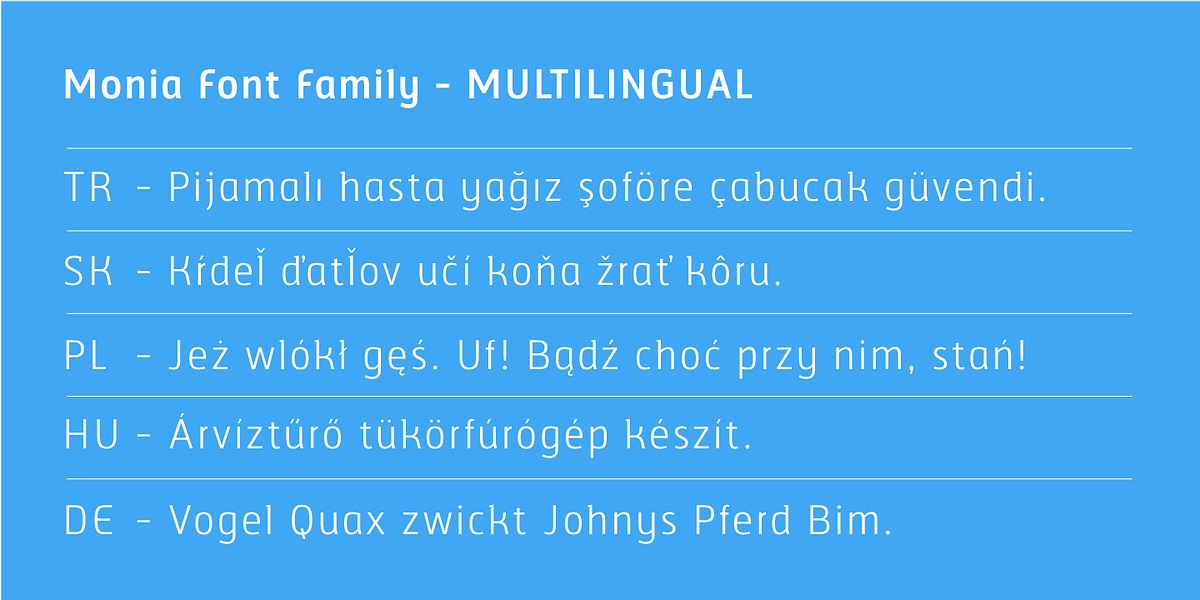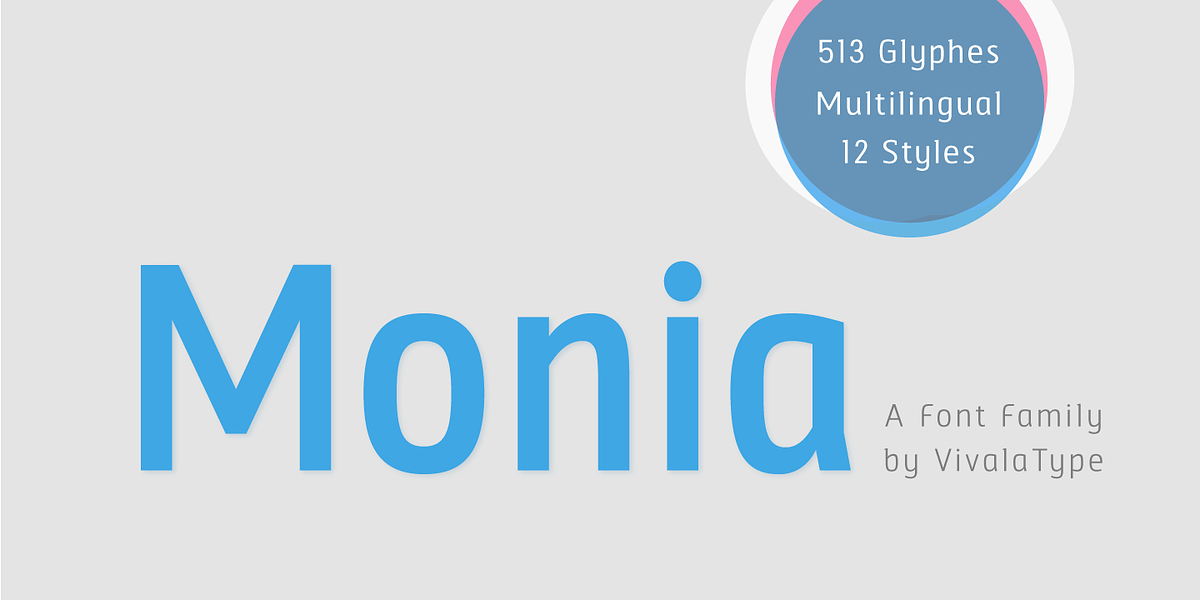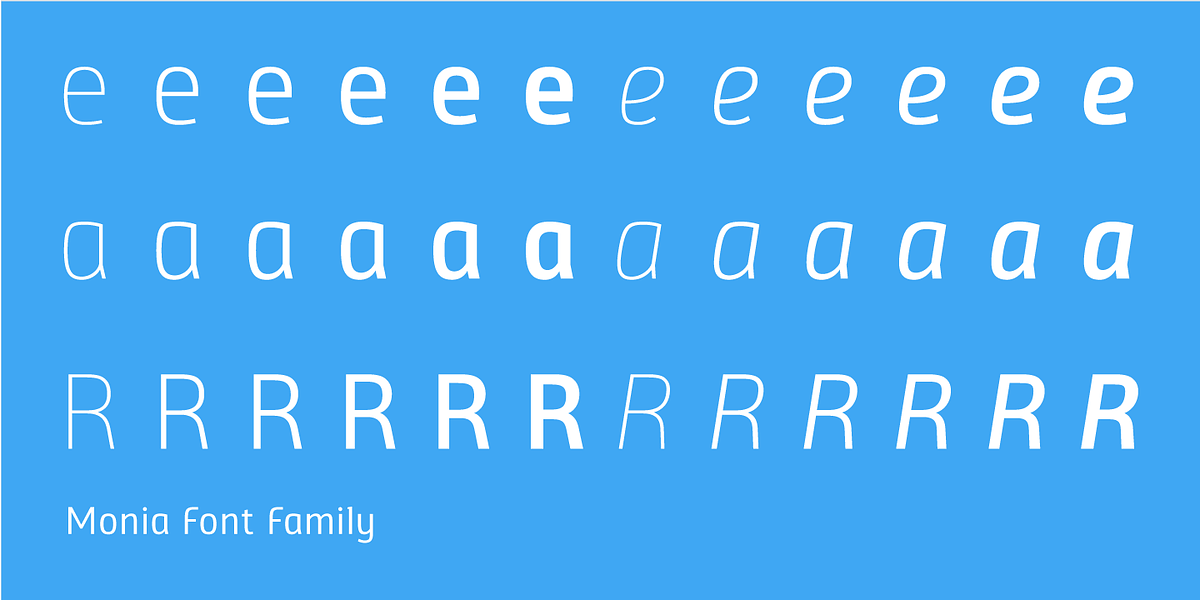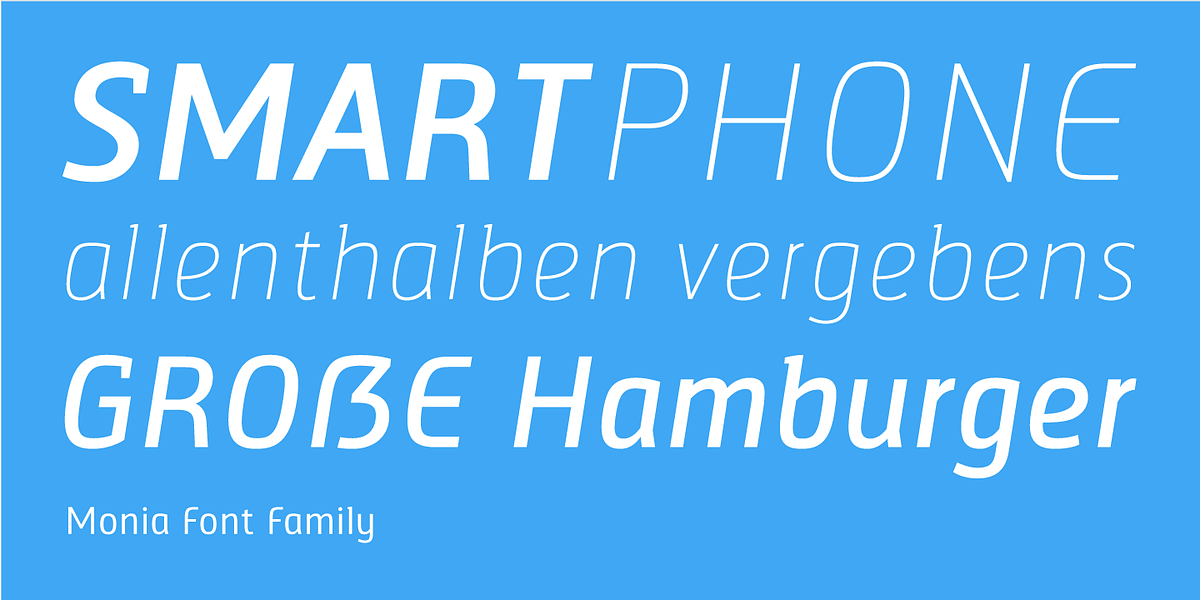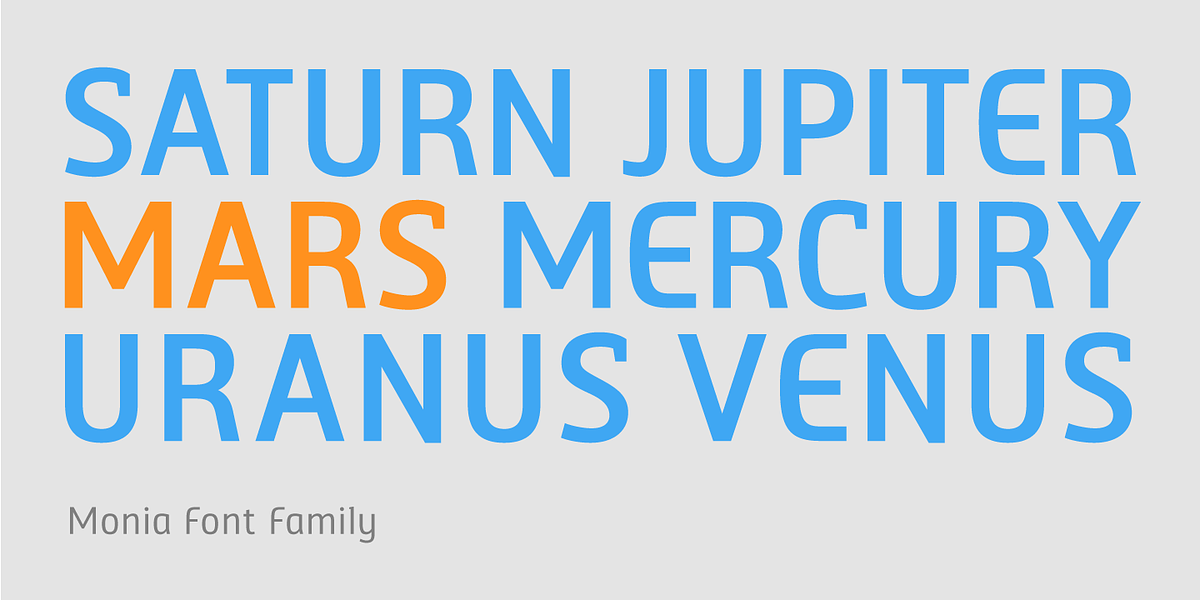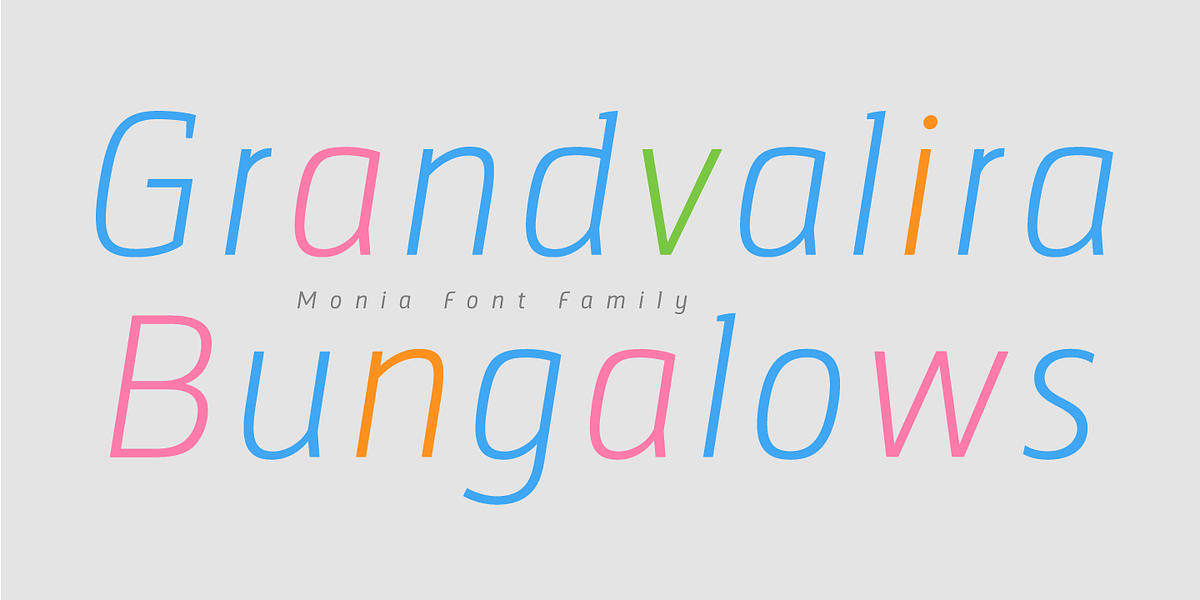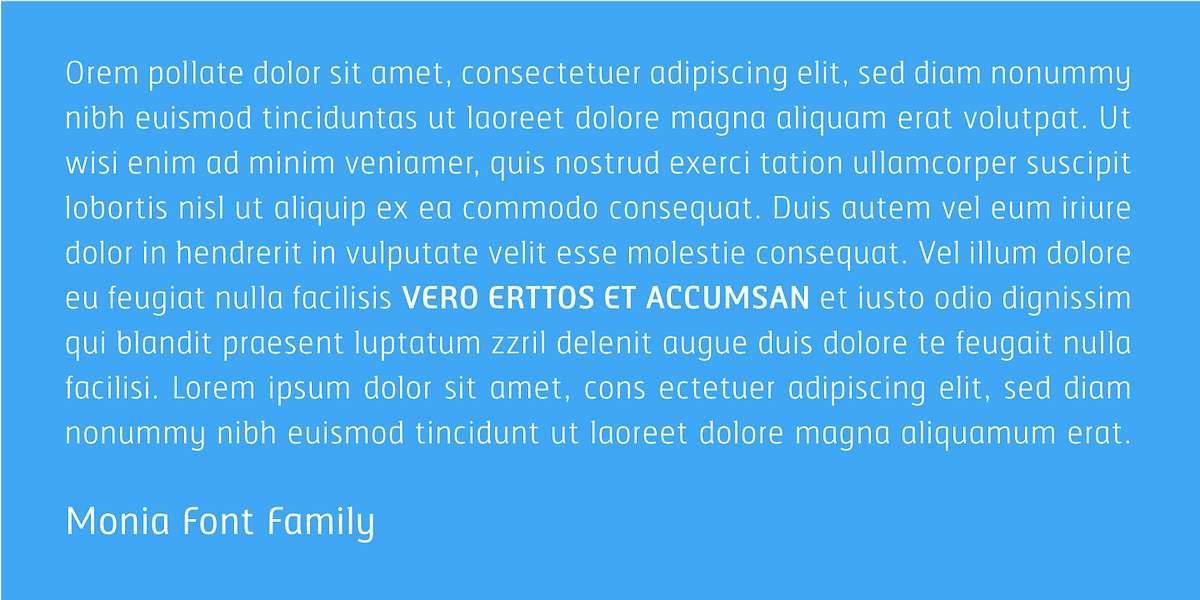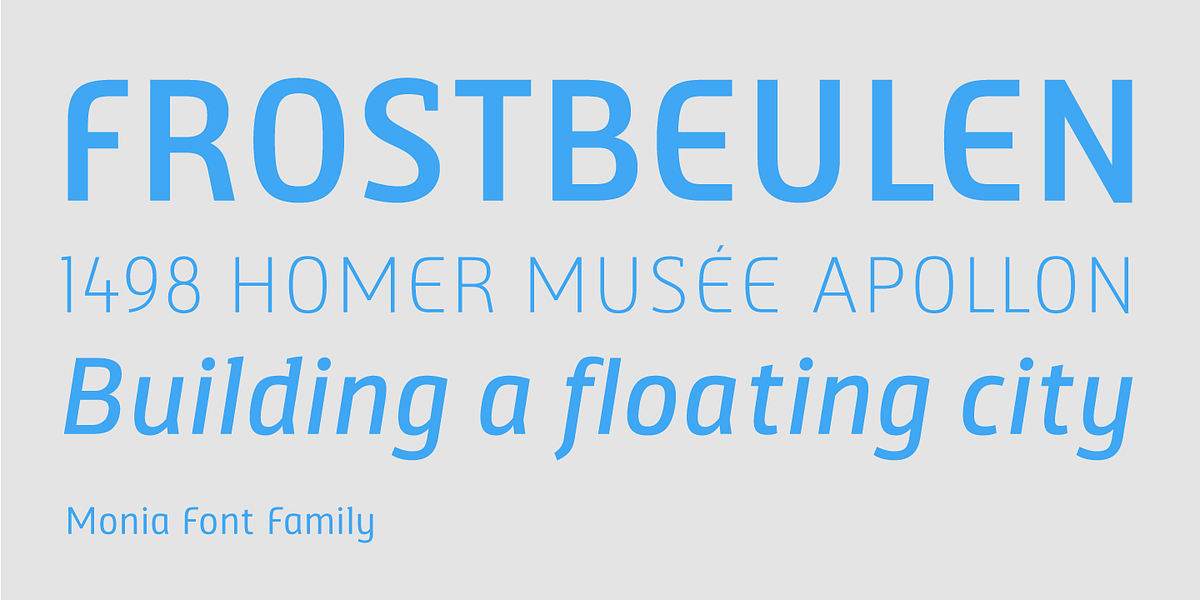
Monia
Monia is a modern grotesque sans serif typeface designed for both copy and display purposes. It offers a wide range of weights (twelve total) with corresponding true italic styles. This versatility makes Monia suitable for various design applications including posters, magazines, corporate branding, and packaging.